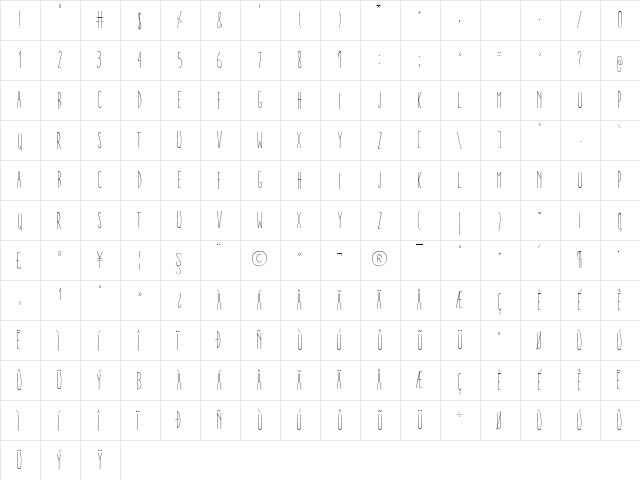
Aracne Ultra Condensed Light Ultra-condensed Light Font Preview
| Foundry | Julia Martinez Diana, Antipixel. |
| Designer | Julia Martinez Diana, Antipixel |
Design Context for Aracne Ultra Condensed Light Typeface
Aracne Ultra Condensed Light takes a measured approach to typography — its balanced proportions and neutral character make it a reliable workhorse for both digital and print work. Its slender proportions lend an understated elegance to any composition. Its narrow stance lets it pack a punch even in space-constrained designs.